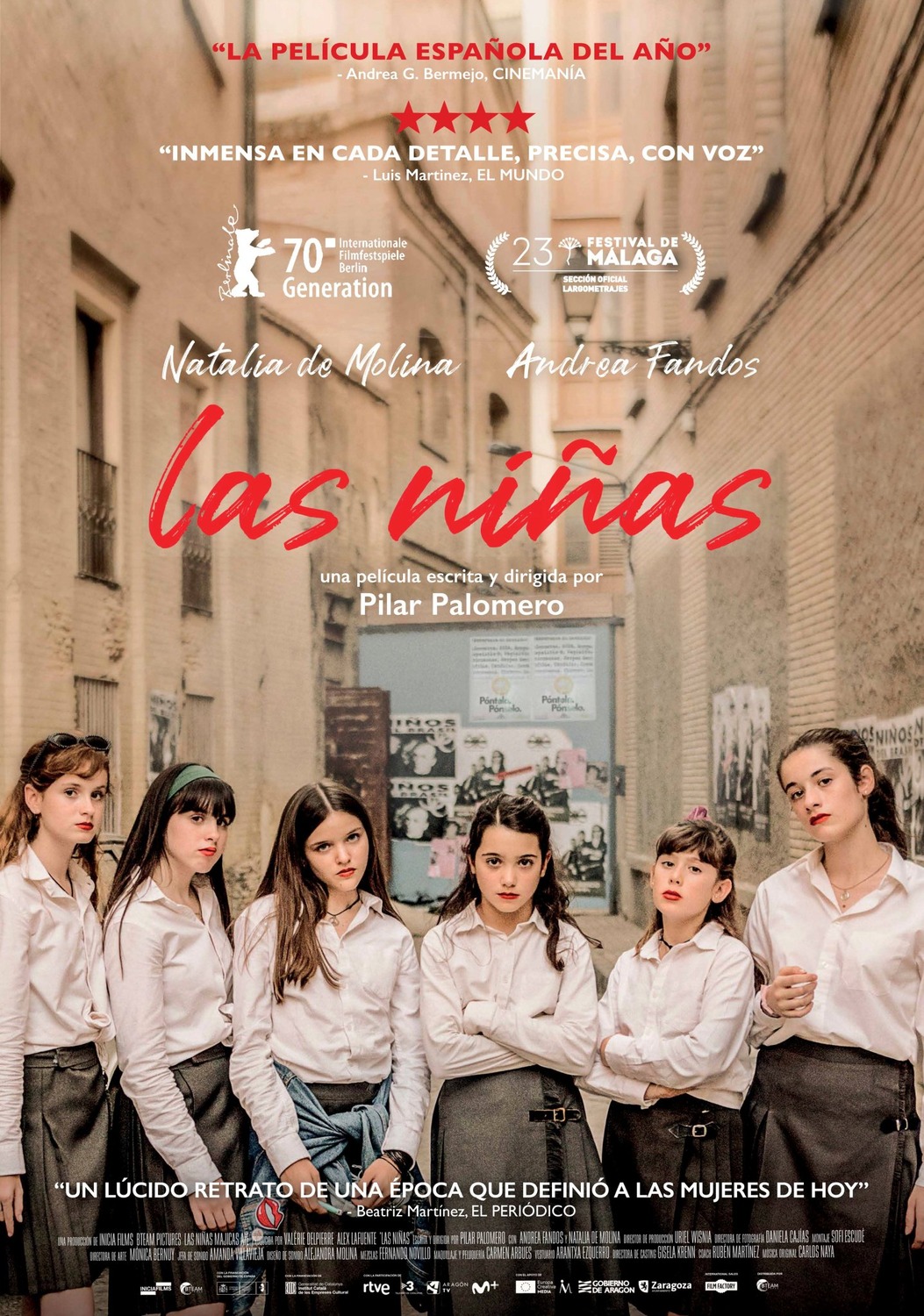
The Girls [Movie] Font
DramaThe Girls (Spanish: Las niñas) is a Spanish drama series that follows the lives of four teenage girls as they navigate through adolescence, friendship, and love. The film was directed by Pilar Palomero.
The script font used for the film title on the poster is Rallian, created by Lettersiro Studio. A demo version with limited characters can be downloaded for free from the Fonts Used Section.